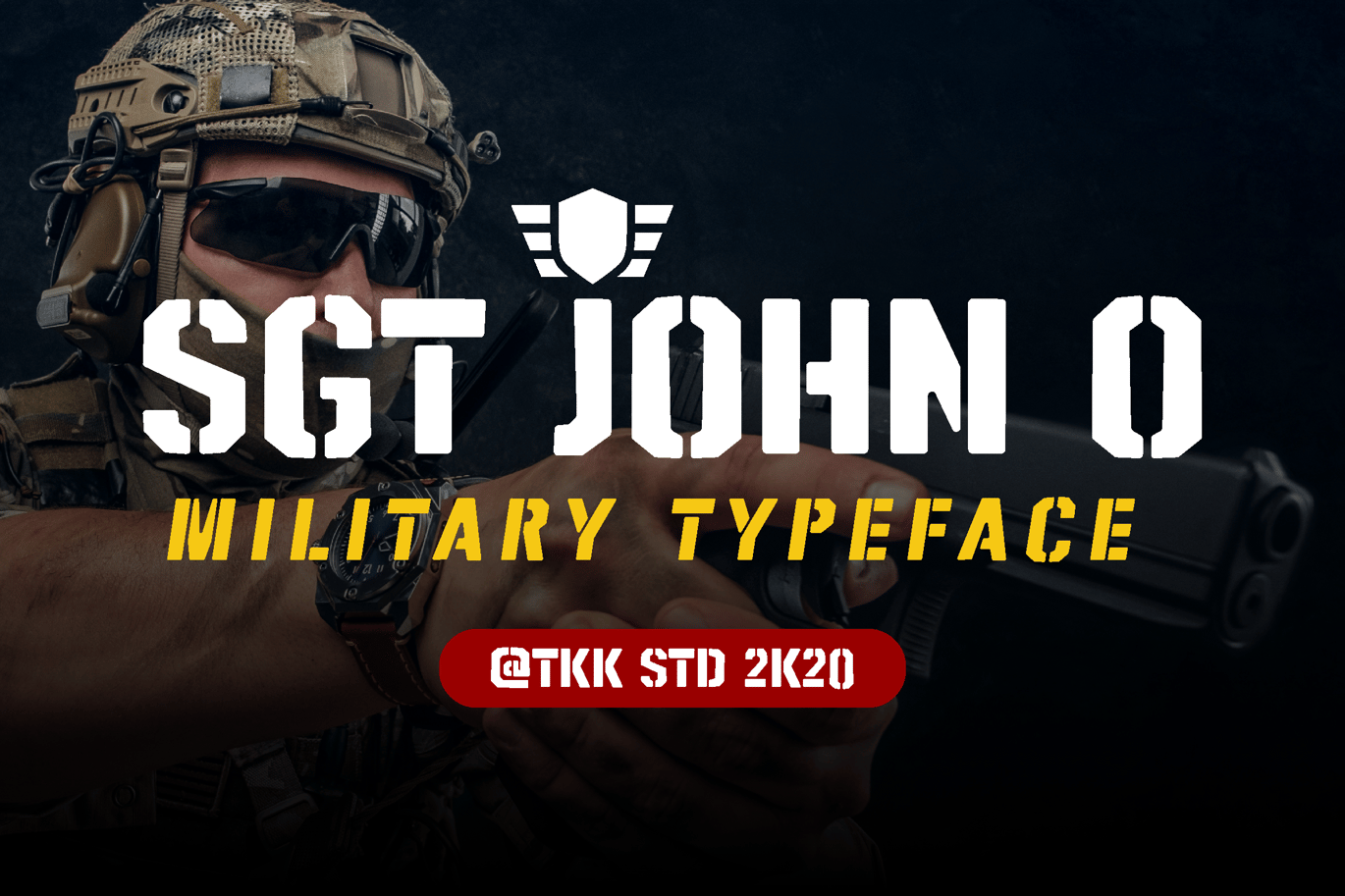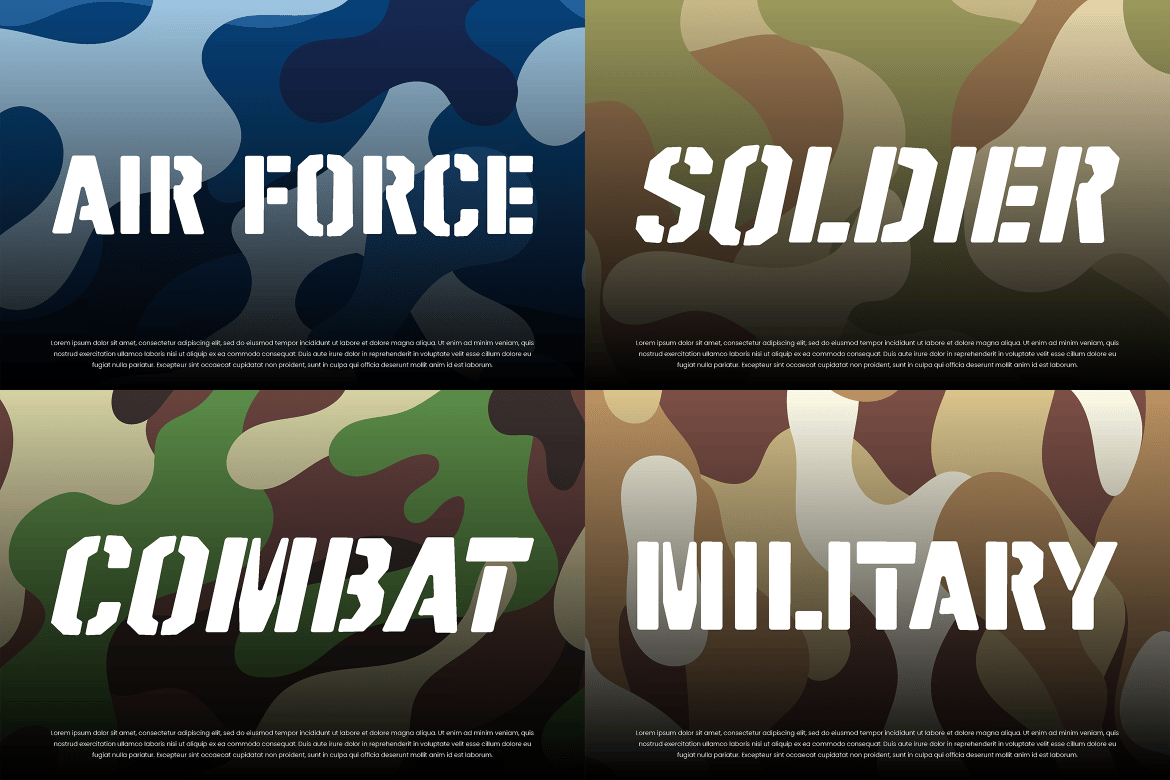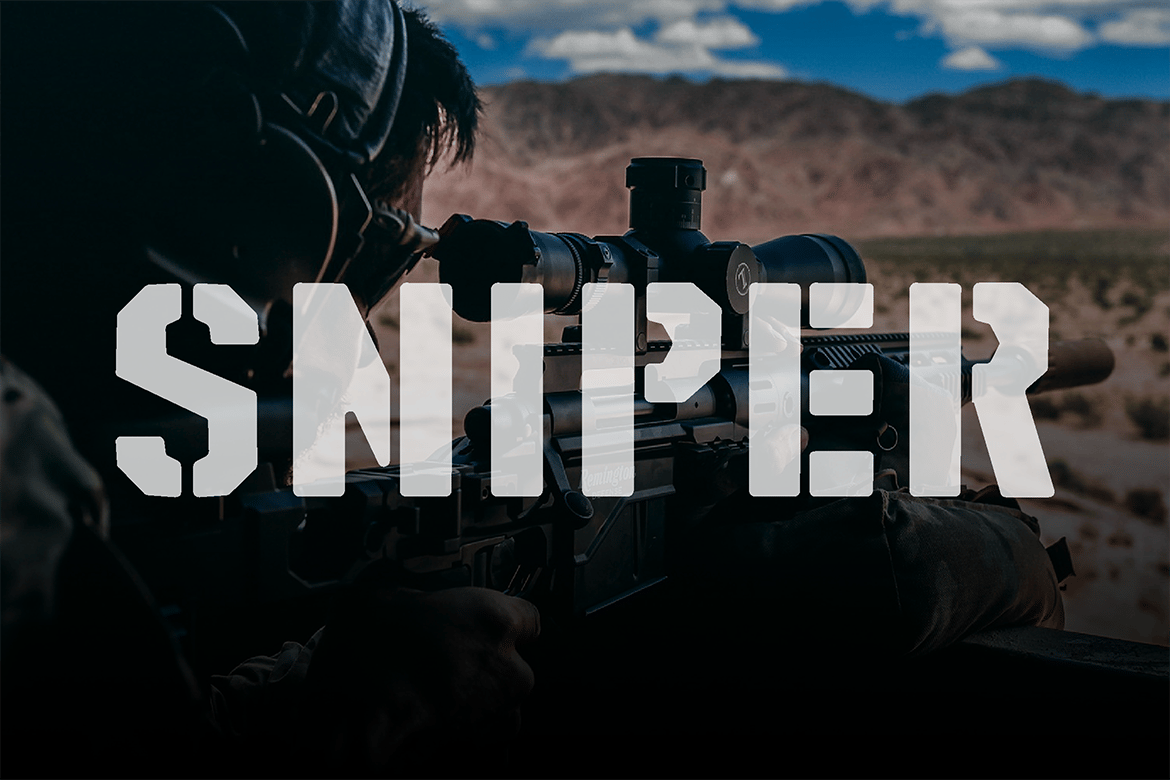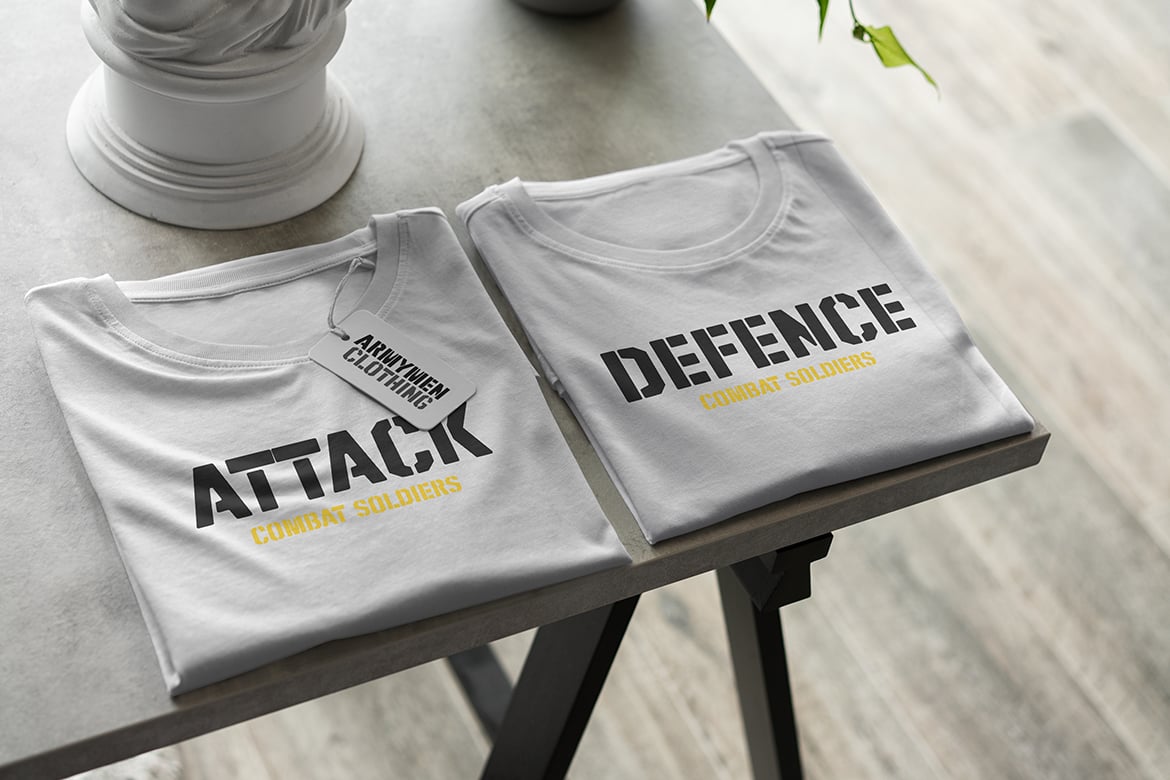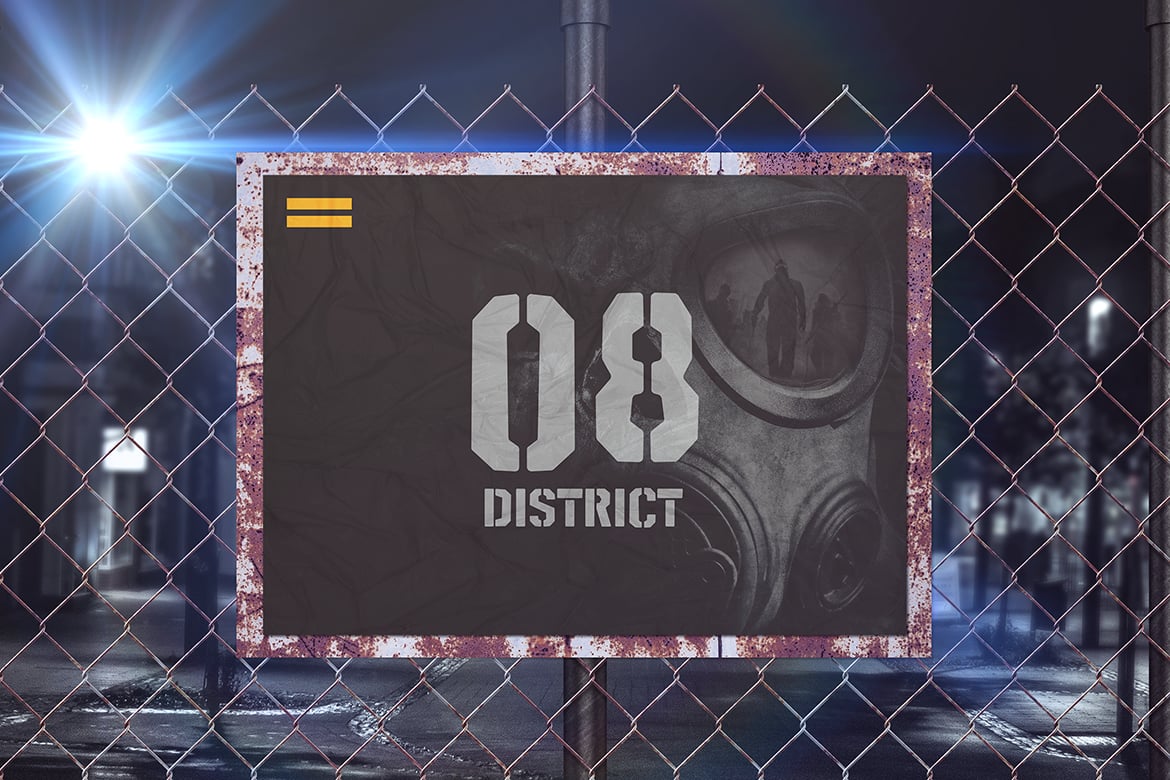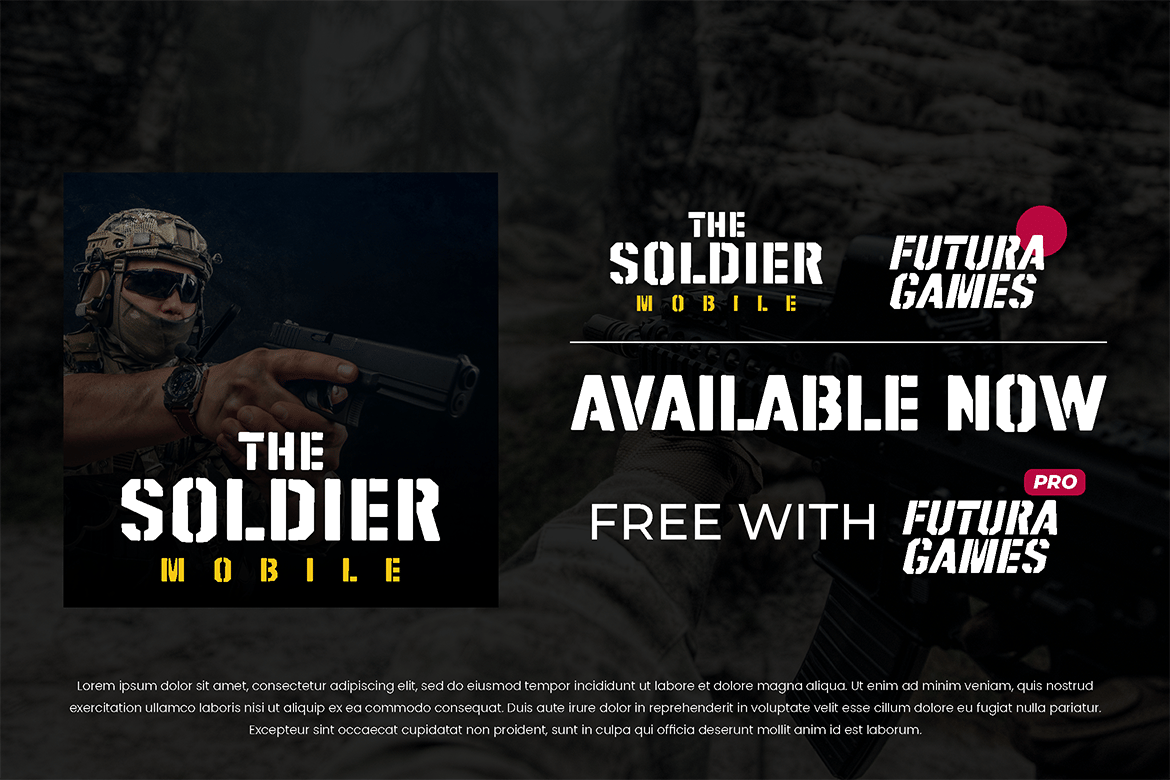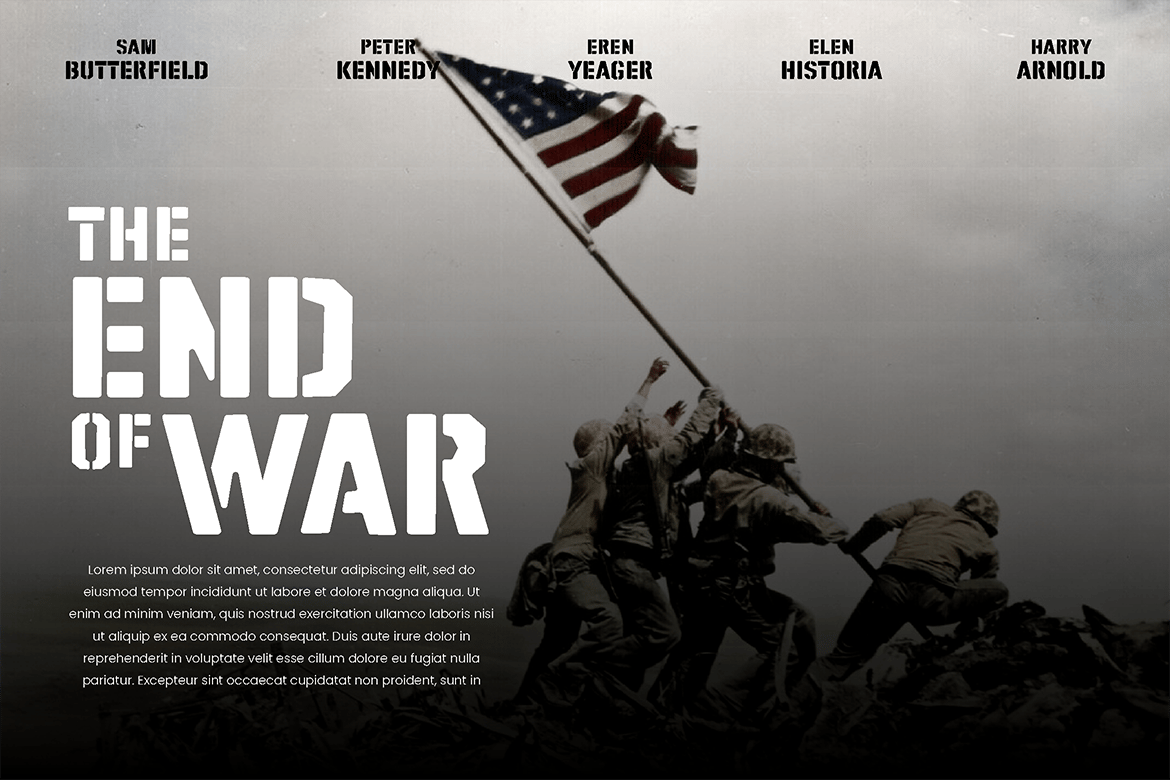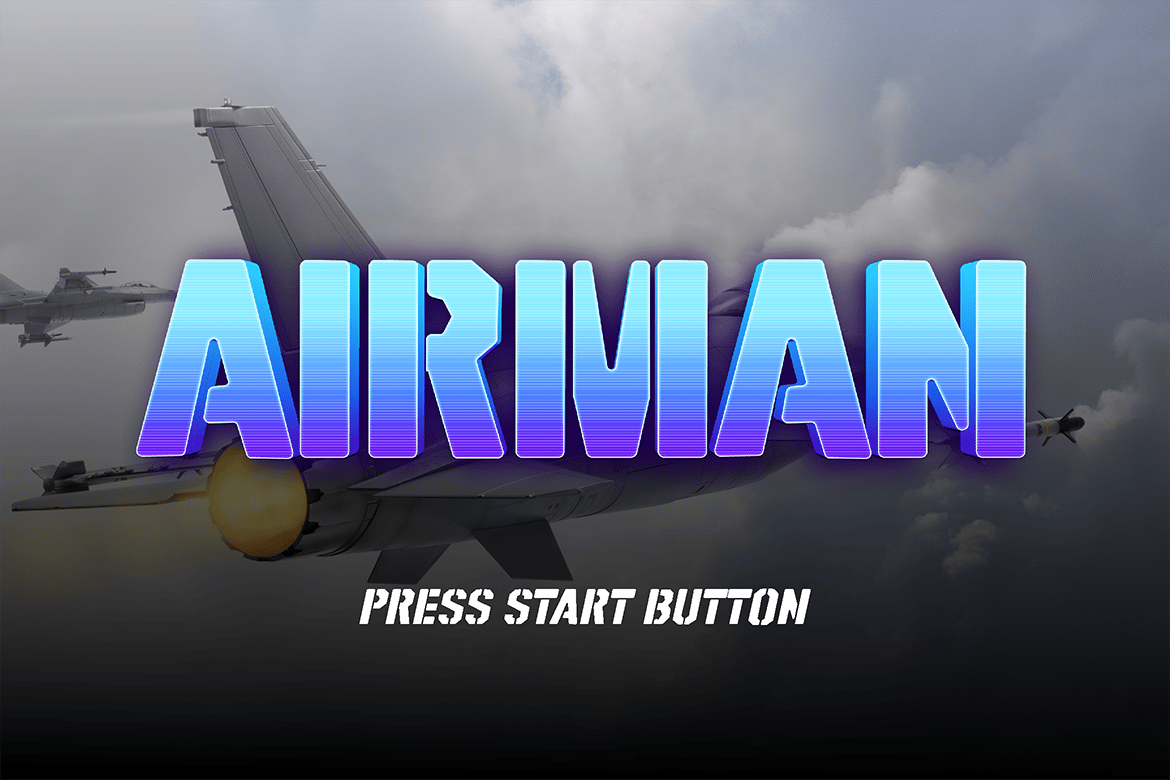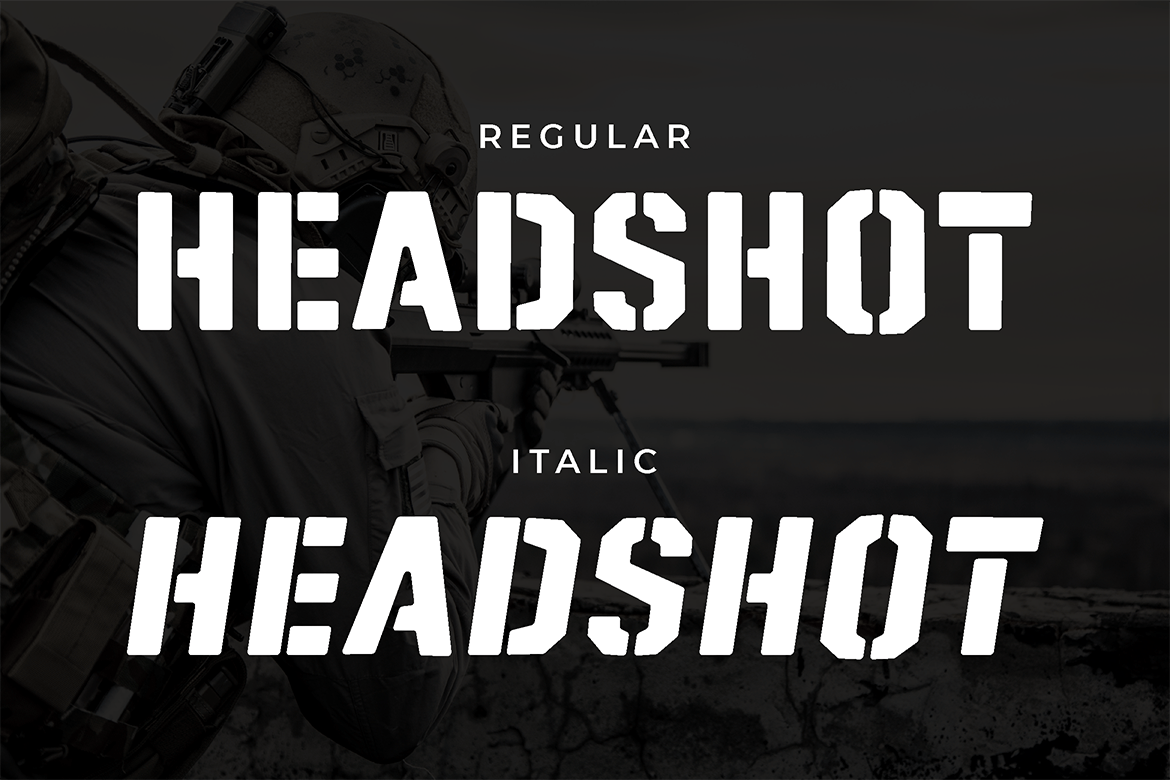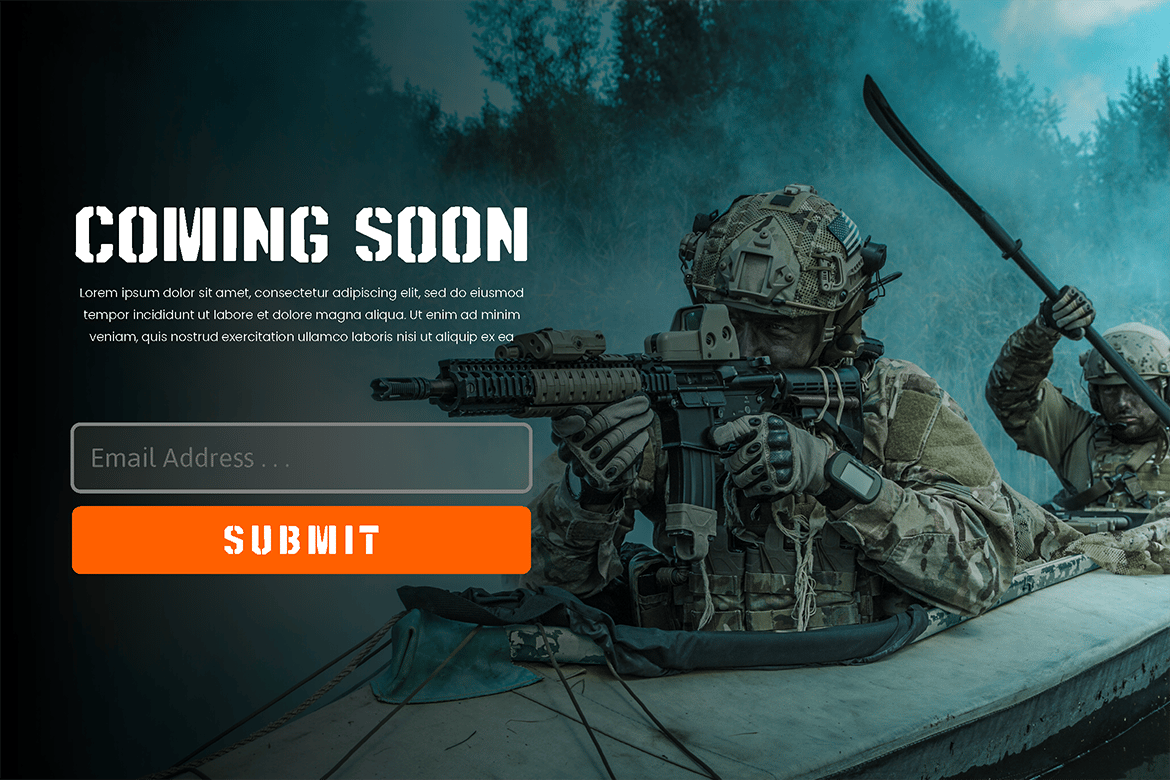
Stencil Army Font – SGT. John O
SGT JOHN O – A Bold Military Typeface for Tactical Impact
SGT JOHN O is a powerful and rugged military-style typeface designed for high-impact visuals, tactical branding, and combat-inspired design. With its bold, stencil-cut letterforms and commanding presence, this font delivers authentic military aesthetics, making it ideal for army recruitment posters, battlefield-themed games, defense branding, and tactical gear packaging.
Built for strength and resilience, SGT JOHN O blends sharp precision with an industrial edge, ensuring clear readability in high-action settings. Whether you’re designing military apparel, sniper-themed graphics, or immersive warzone visuals, this font reinforces a sense of power, discipline, and authority.
- Military-Inspired Stencil Design – Built for authenticity and tactical branding.
- Bold & Commanding Presence – Perfect for impactful headlines and statement designs.
- Optimized for Combat & Defense Themes – Ideal for military branding, games, and tactical gear.
- Versatile Across Digital & Print – Works seamlessly in posters, merchandise, and editorial layouts.
- Warzone-Ready Aesthetic – Captures the grit, precision, and power of military environments.
SGT JOHN O stands strong in the battlefield of design—ready for action.
- Reguler and Italic